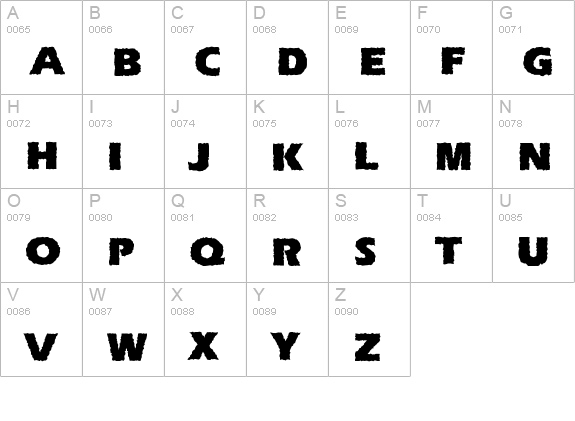
Grunge Arrias Black is a maximum-weight, dramatic variant in the Grunge typeface family \xE2\x80\x94 well suited to maximum-impact headlines, posters, and packaging.
Introducing Grunge Arrias Black font, a striking display font that exudes a raw, edgy vibe perfect for adding a touch of rebellious style to your designs. This font features distressed, grungy details that give it a unique and authentic look, making it ideal for projects that call for a bold and rugged aesthetic. Grunge Arrias Black is a versatile font that can be used for various design projects such as posters, album covers, merchandise, and more. Its bold and impactful presence commands attention and adds a touch of attitude to any creative endeavor. Best of all, Grunge Arrias Black font is available for free download at FontsMarket.com, making it easily accessible for designers and creatives looking to add a touch of grunge to their projects without breaking the bank. Don't miss out on this opportunity to elevate your designs with the distinct character of Grunge Arrias Black font.